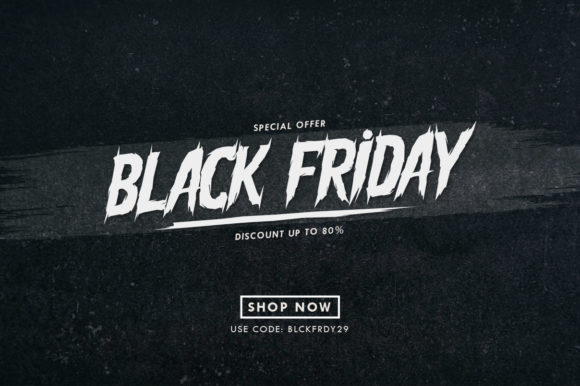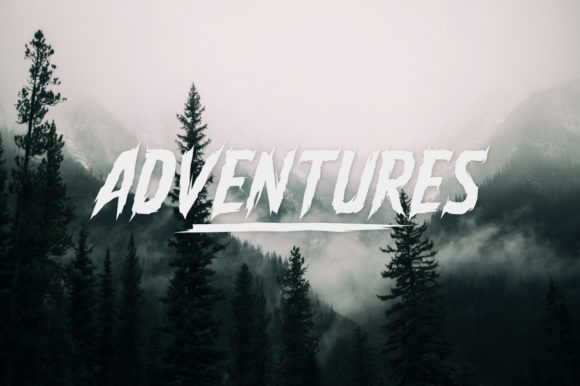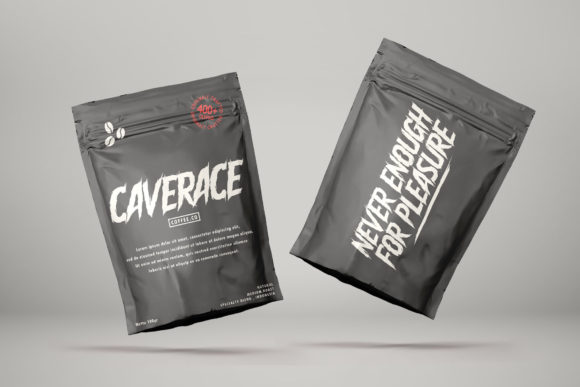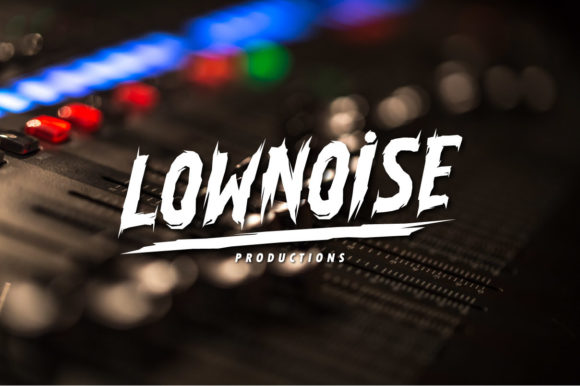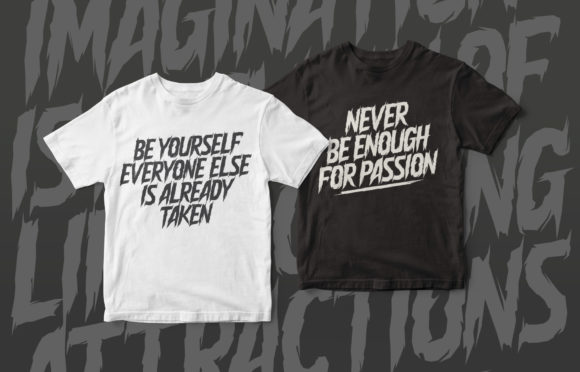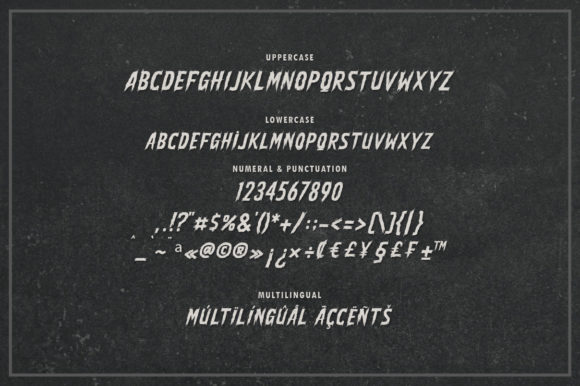
Introduction to Northvain Font Font
Fonts play a crucial role in design, and the Northvain Font font is a typeface that brings both character and versatility to any project. Whether you’re working on a branding project, a website, or a print design, the Northvain Font font offers a unique style that can elevate your work.
Northvain is a bold, dramatic and thick lettered display font.
It looks a bit scary and it will most certainly make your designs stand out .
Key Features of Northvain Font Font
Why Choose Northvain Font Font?
The Northvain Font font is more than just a typeface – it’s a design tool that helps you communicate your message with style and clarity. Its unique character set and versatile design make it suitable for a wide range of applications, from elegant invitations to bold headlines.
With its carefully crafted letterforms and balanced proportions, the Northvain Font font ensures readability and visual appeal across all mediums.
What makes Northvain Font font special?
The Northvain Font font stands out with its unique design, exceptional readability, and versatility across various design applications.